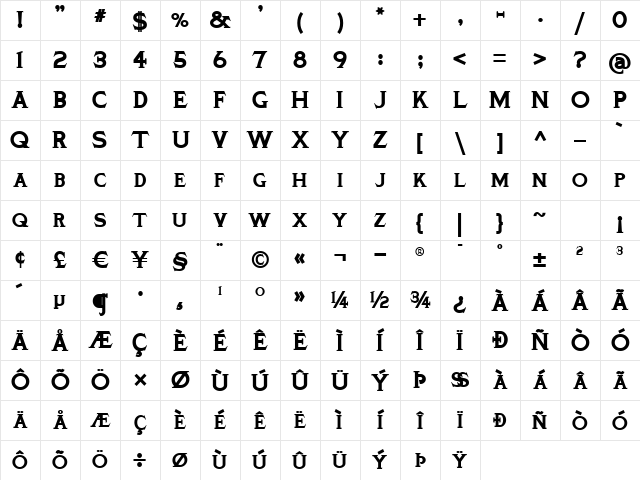
Ozymandias Solid WBW Regular
Designer: Nick Curtis
Design Context for Ozymandias Solid WBW
Ozymandias Solid WBW is a composed and adaptable typeface that performs quietly and consistently across a wide range of design contexts.